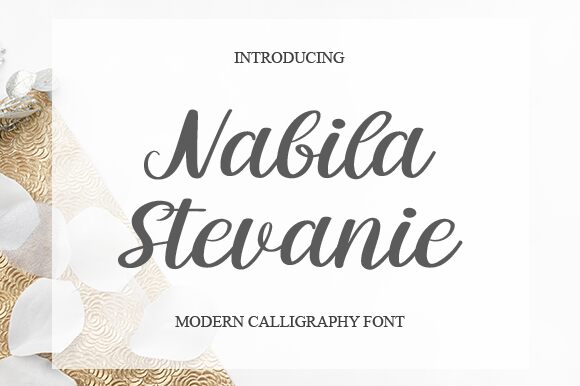
Nabila Stevanie
Nabila Stevanie is the epitome of modern calligraphy. Its bold weight provides a strong presence on any project, ensuring its message is seen and heard. Created by Graphix Line Studio, this font typeface is versatile in nature and suitable for a variety of projects, from wedding invitations to branding materials. Nabila Stevanie's fluid strokes and unique lettering style effortlessly exude elegance and sophistication, making it an ideal choice for any design that requires a touch of refinement. Make an impression with Nabila Stevanie; it's the perfect font for those who dare to be different.